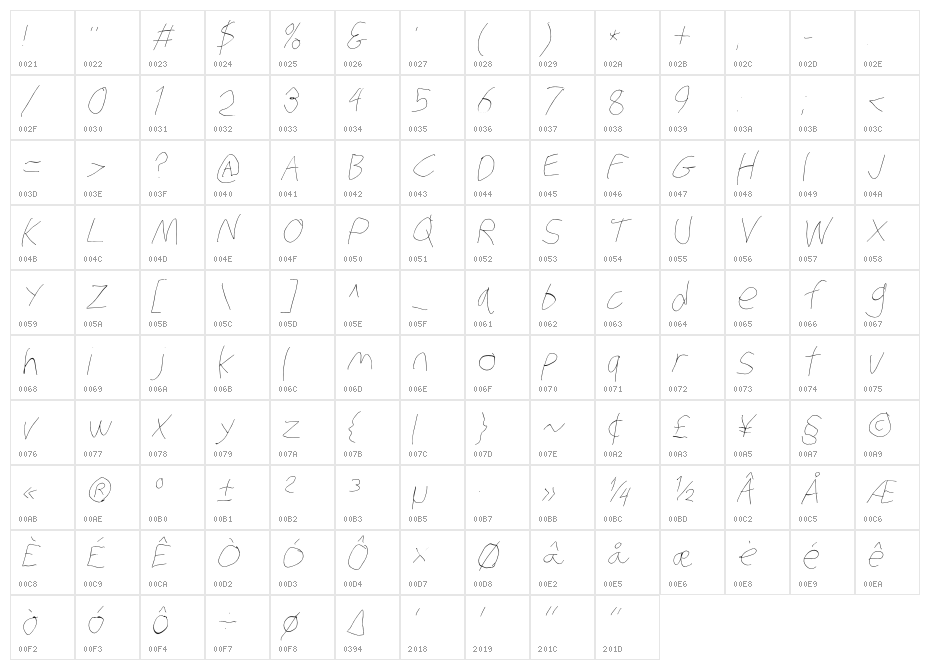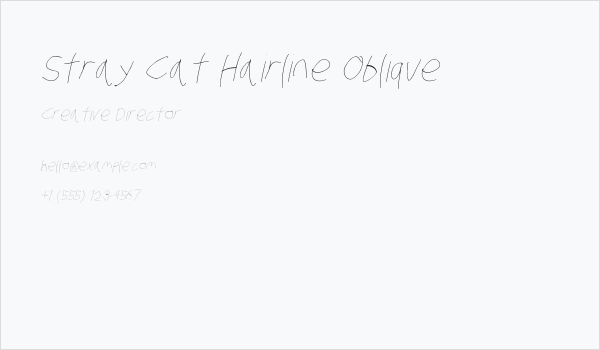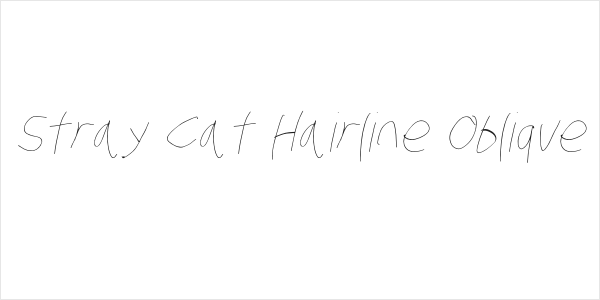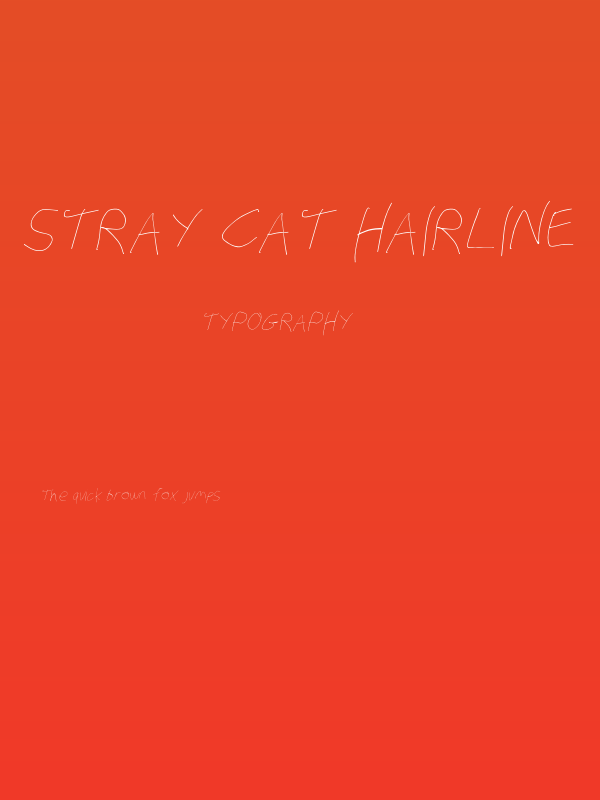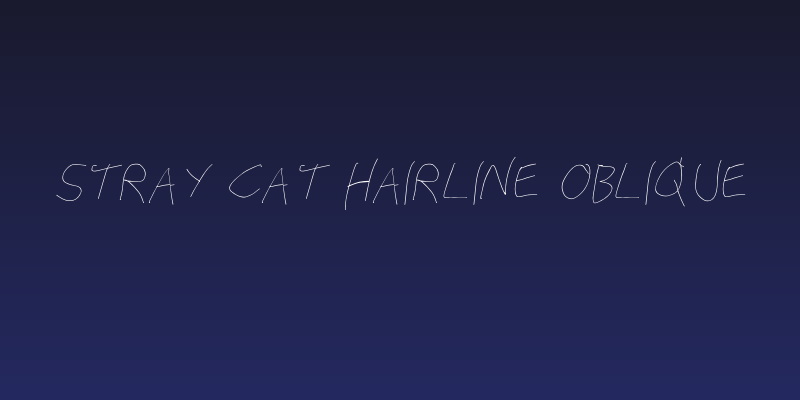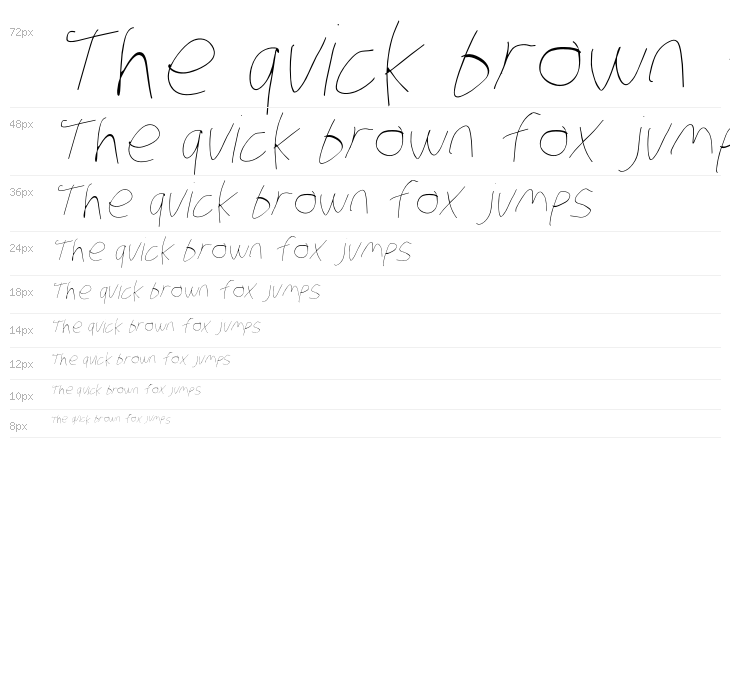
Stray Cat Hairline Oblique Font
Stray Cat Hairline Oblique Description
This font features a delicate, hand-drawn style with thin, hairline strokes that give it a light and airy appearance. The characters are slightly oblique, adding a sense of motion and fluidity. Each letter is crafted with a casual, handwritten feel, making it ideal for projects that require a personal touch. The uppercase and lowercase letters maintain a consistent style, while the numbers and special characters complement the overall design. The font's unique character is defined by its irregular lines and playful curves, which create a whimsical and approachable aesthetic.